Font Typesetting Function 03: “Mechanism of Typesetting with Narrowed Spacing Between Characters”
It has been previously explained that the OpenType features have GPOS (making adjustments by moving the glyph position) and GSUB (replacing the glyph). Starting here, and over the next several entries, GPOS will be explained.
In Latin fonts, GPOS is used to arrange the accent marks, etc. in the appropriate positions in addition to kerning. In Japanese fonts, GPOS is mainly used for typesetting with narrowed spacing between characters.
As the subject of typesetting with narrowed spacing between characters is a little complicated, I would like to establish the terms first. In Japanese fonts, Kanji and Kana are designed within a square frame as a rule. This frame is called the body or imaginary body.
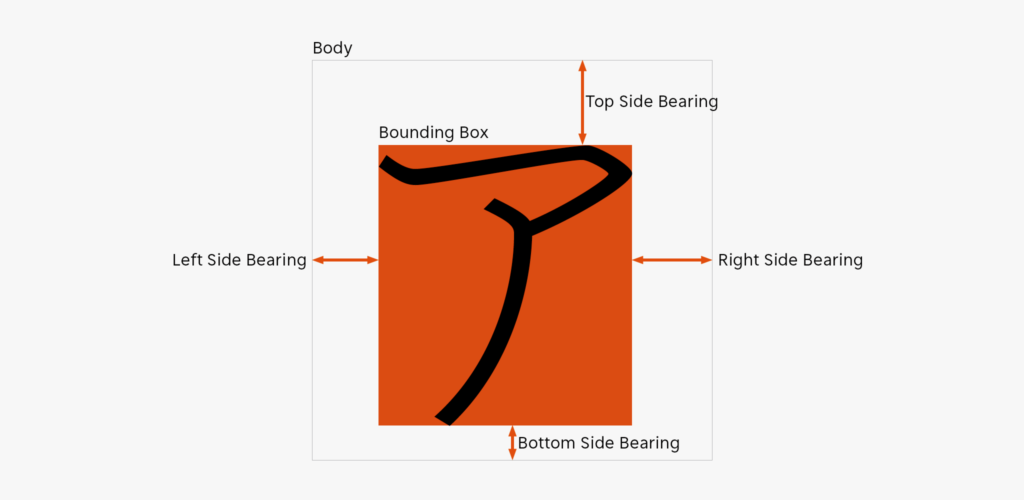
The rectangle in which the character within the body is tightly housed is called the bounding box, and the spaces between the top, bottom, left, and right of the bounding box are called side bearings. The space on the left side is left side bearing.
There are various functions for narrowed spacing between characters, but roughly speaking, in terms of appearance apart from internal logics, all functions are used to remove side bearings. In the next entry, I will talk about the functions for narrowed spacing between characters in InDesign/Illustrator.